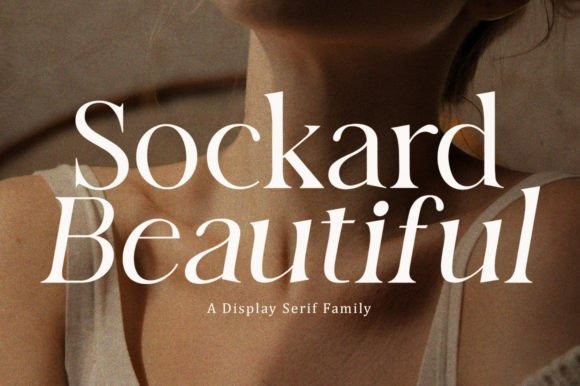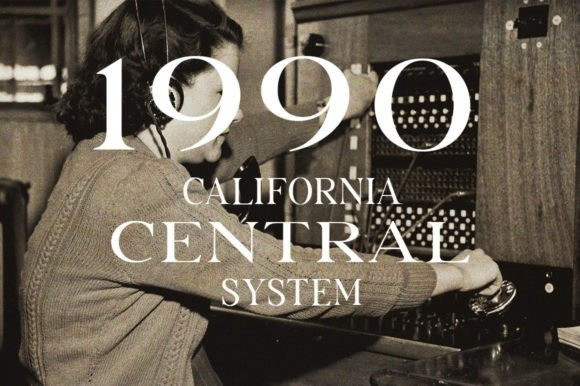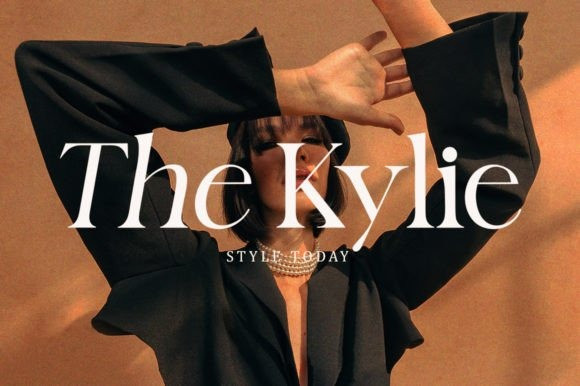
Sockard Beautiful Font
Sockard Beautiful is a display font that strikes the perfect balance between classic and modern, combining serif and sans serif styles in a unique way. Its timeless appeal makes this font a great choice for stylish designs.